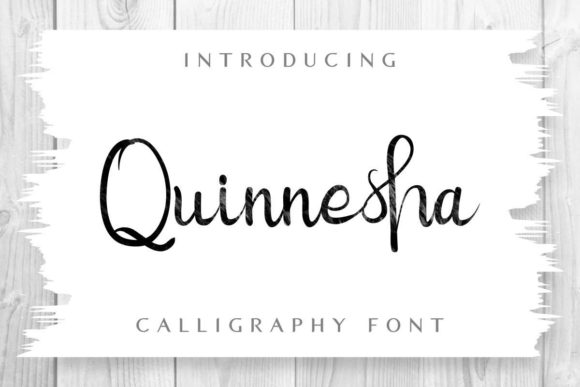
Embark on an extraordinary typographic journey with Quinnesha, an enthralling handwritten font that transforms your creative visions into captivating realities. Crafted by the renowned EdricStudio, this enchanting script font breathes life into your designs, adding a touch of elegance, whimsy, and sophistication.
With Quinnesha, you can unlock a world of boundless possibilities. Its flowing curves, delicate strokes, and graceful letterforms dance across your screen, creating a symphony of beauty. It's the perfect choice for adding a personal touch to your projects, whether you're crafting logos, invitations, social media graphics, or website designs.
Unleash your creativity and let Quinnesha take center stage. Its captivating personality shines through in every word, adding a unique charm that sets your work apart from the rest. Whether you're designing for print or digital media, Quinnesha's versatility knows no bounds.
Experience the allure of Quinnesha today and elevate your designs to new heights. Its timeless beauty will captivate your audience, leaving a lasting impression that lingers in their minds. Embrace the power of Quinnesha and let your imagination soar.
Elevate your designs with an exquisite font that speaks volumes. Quinnesha's charm and versatility will transform your creative endeavors into masterpieces. Embrace the allure of this remarkable handwritten font and watch as your visions come to life with beauty, grace, and endless possibilities.